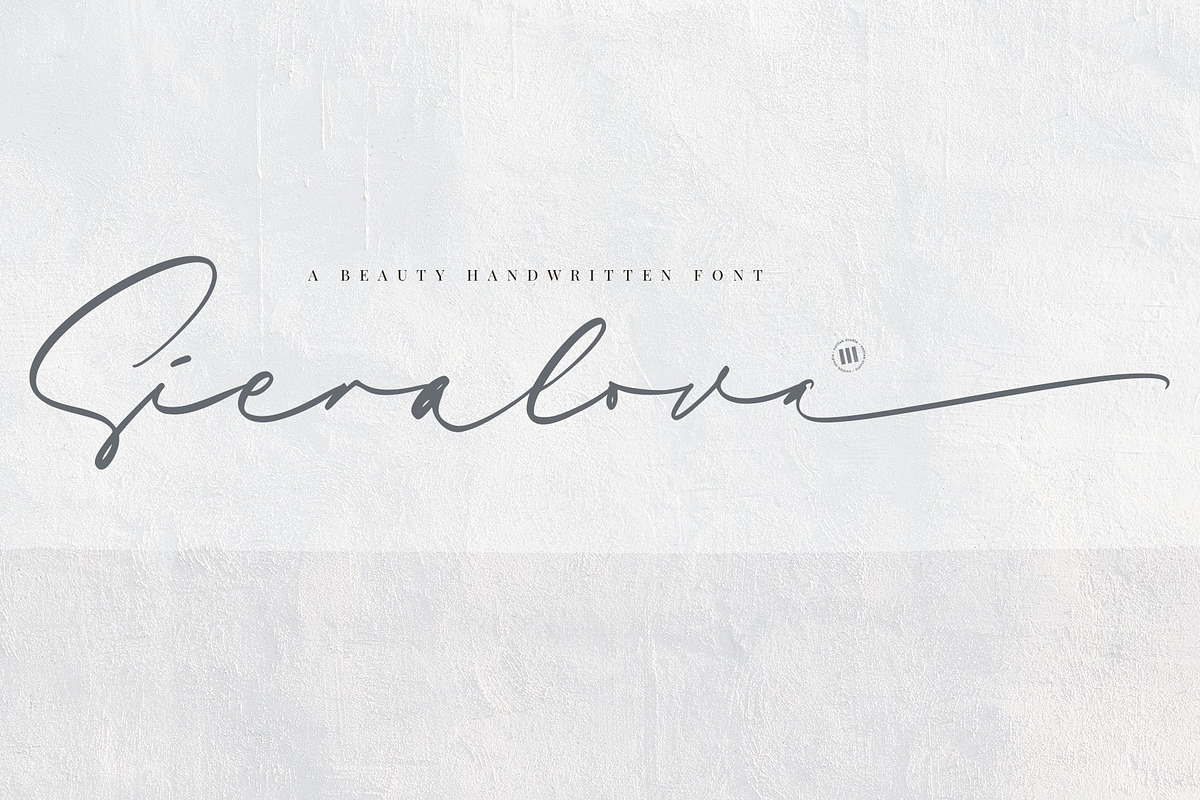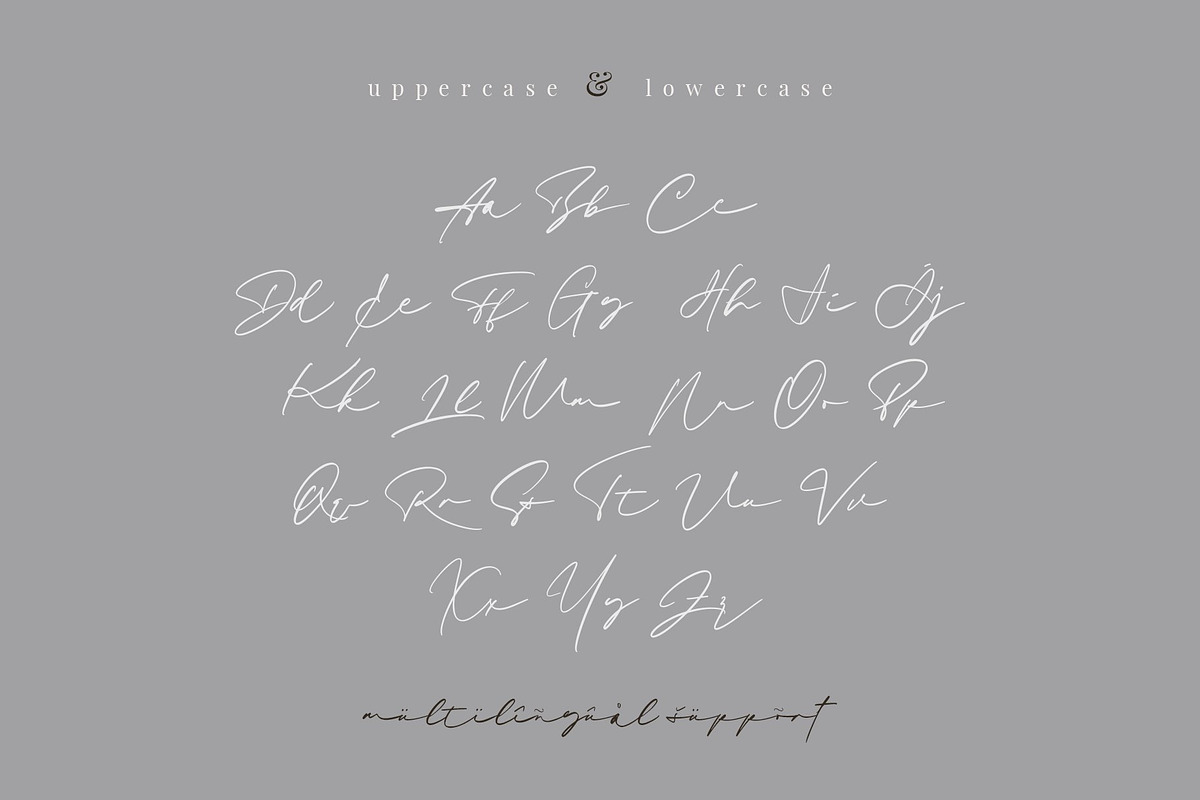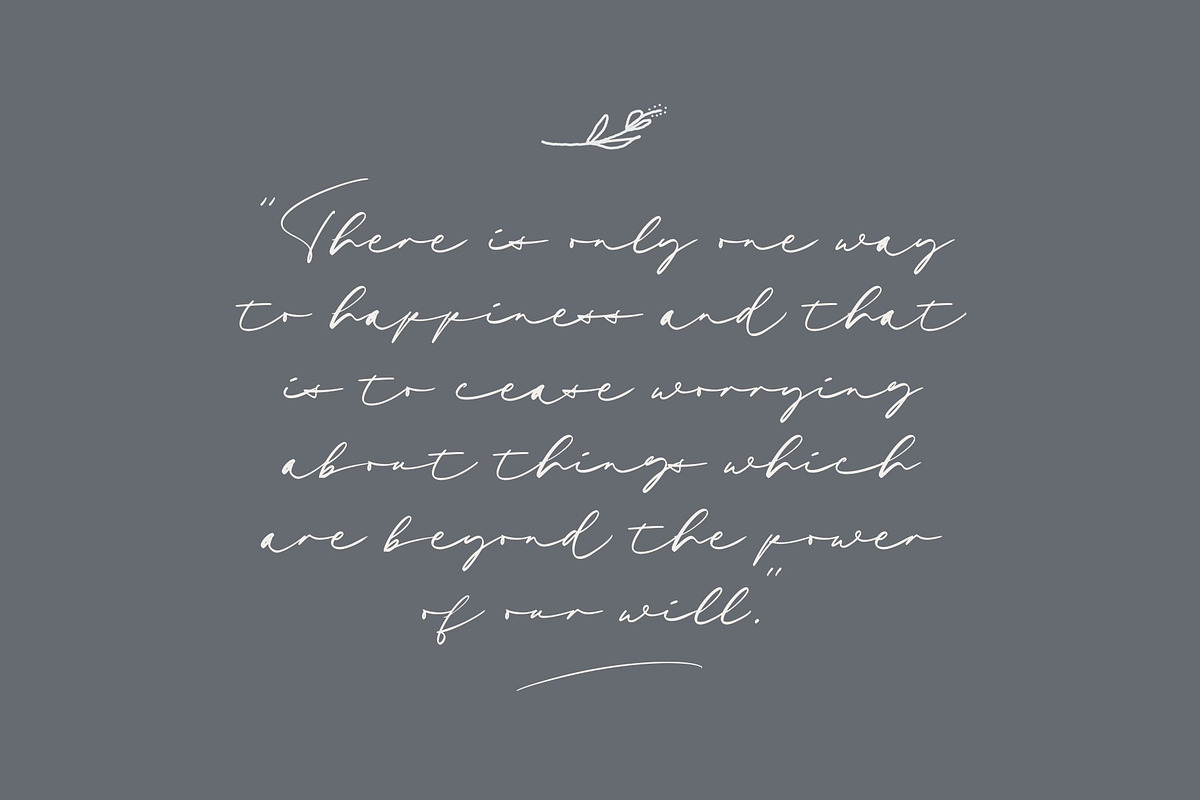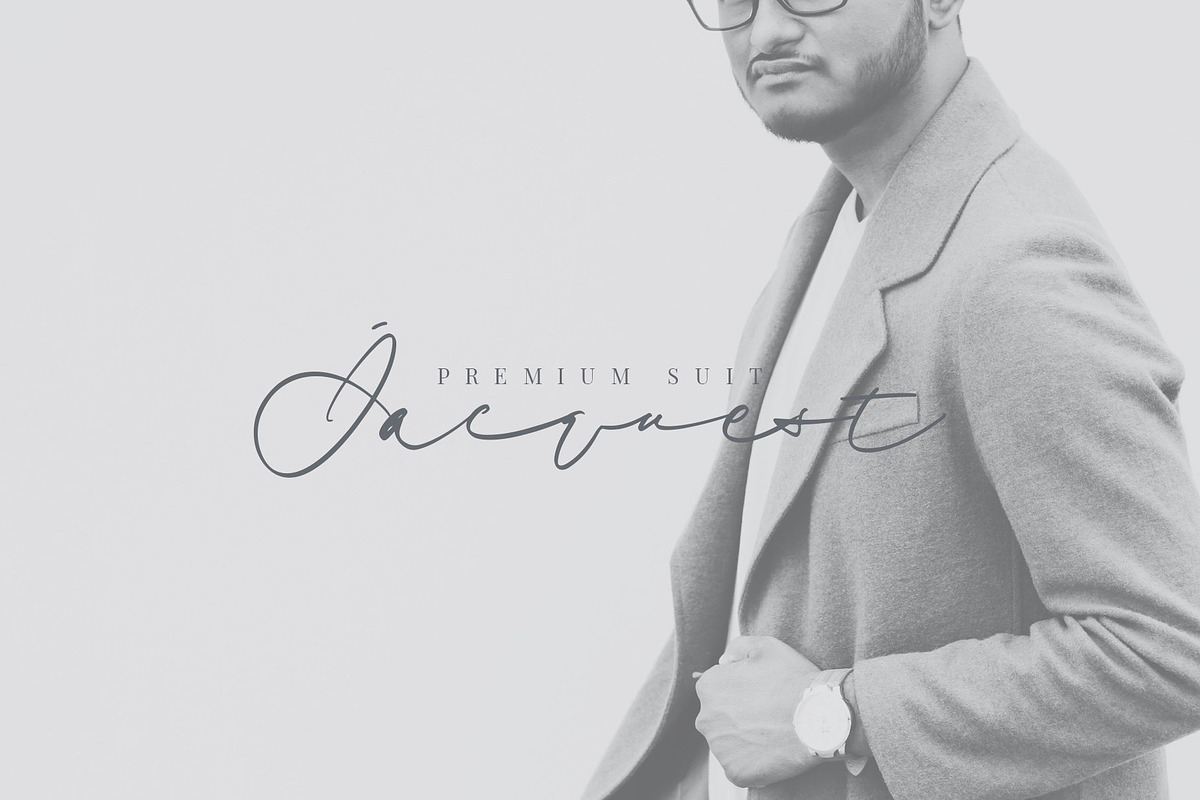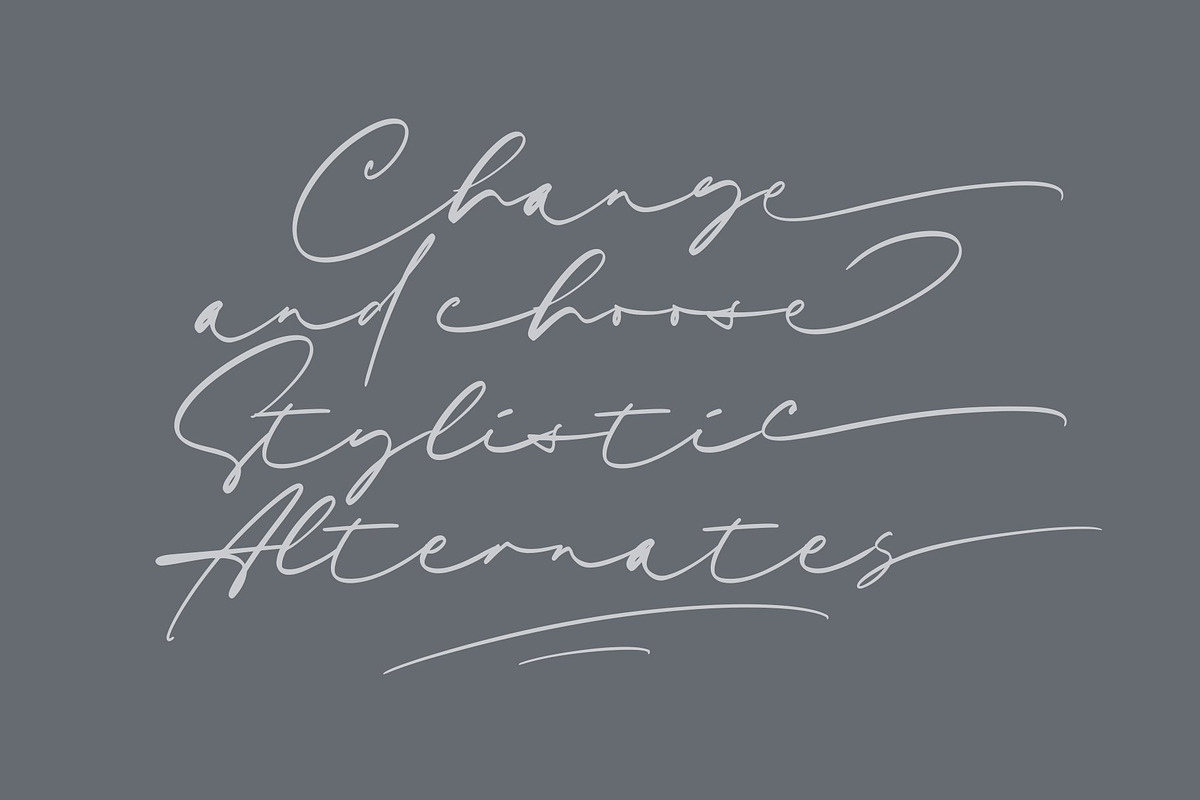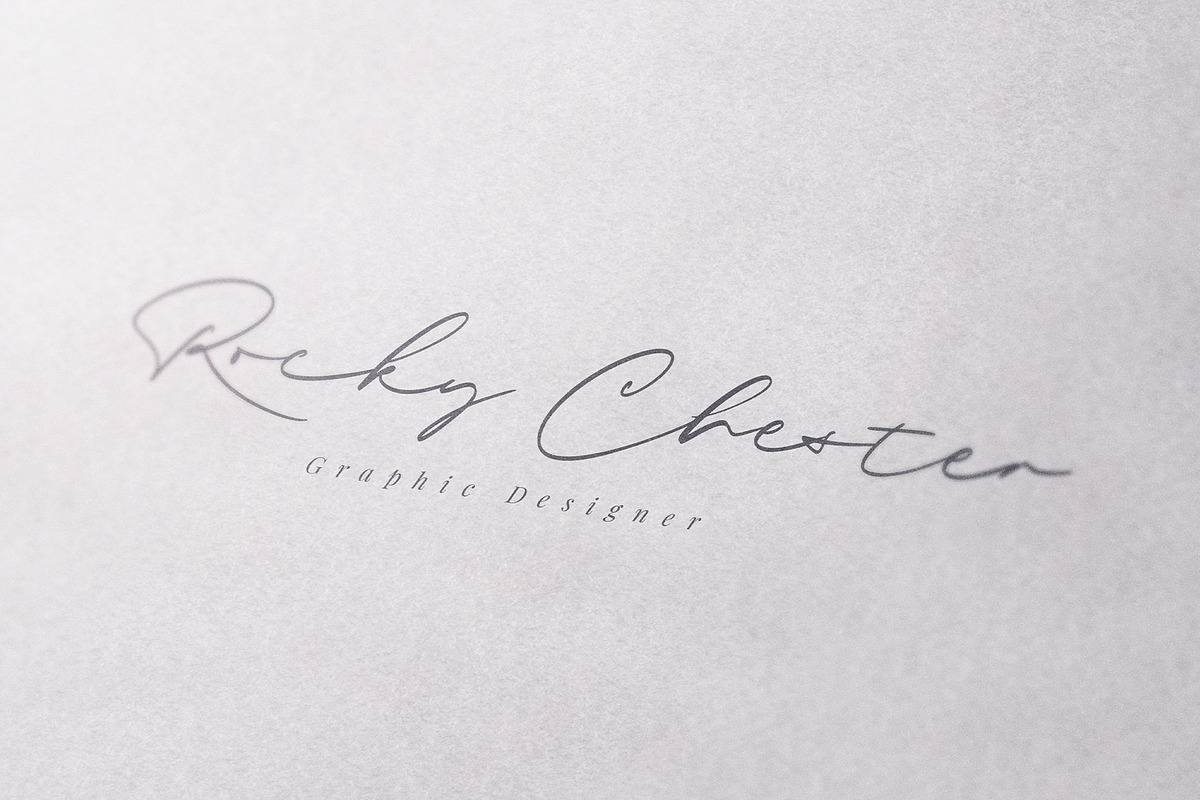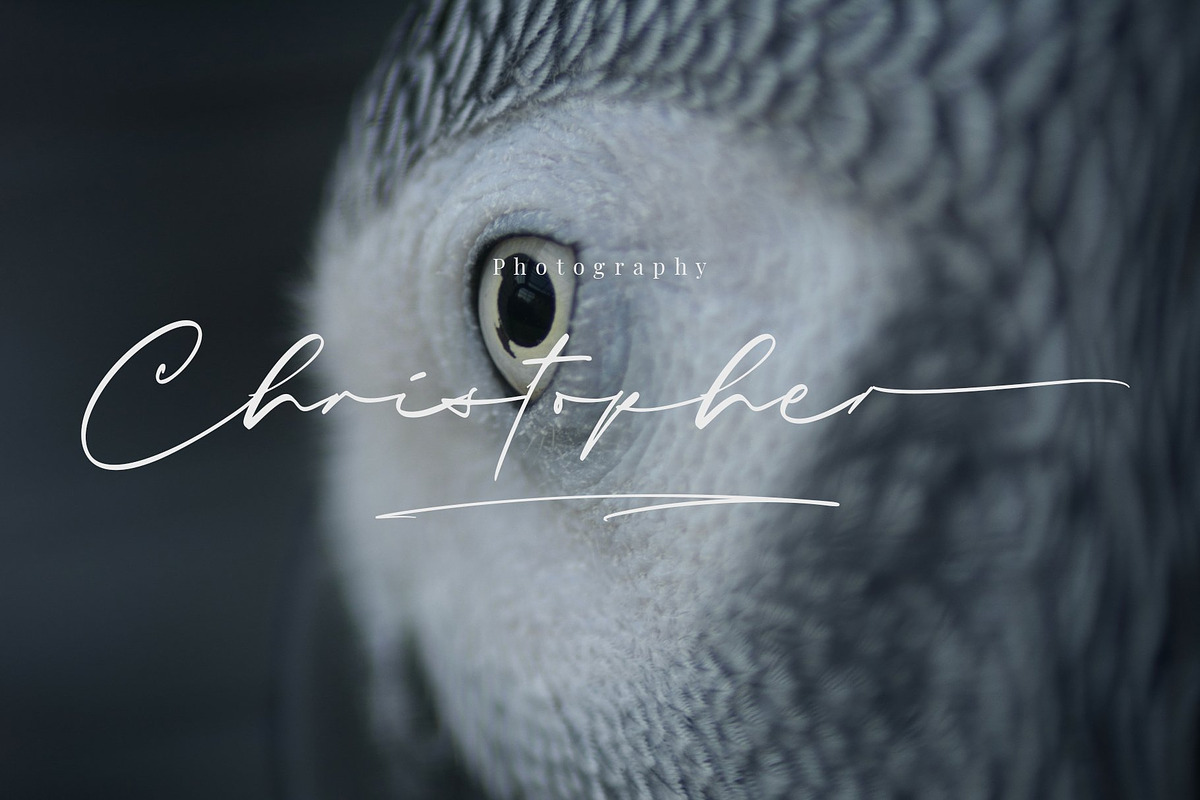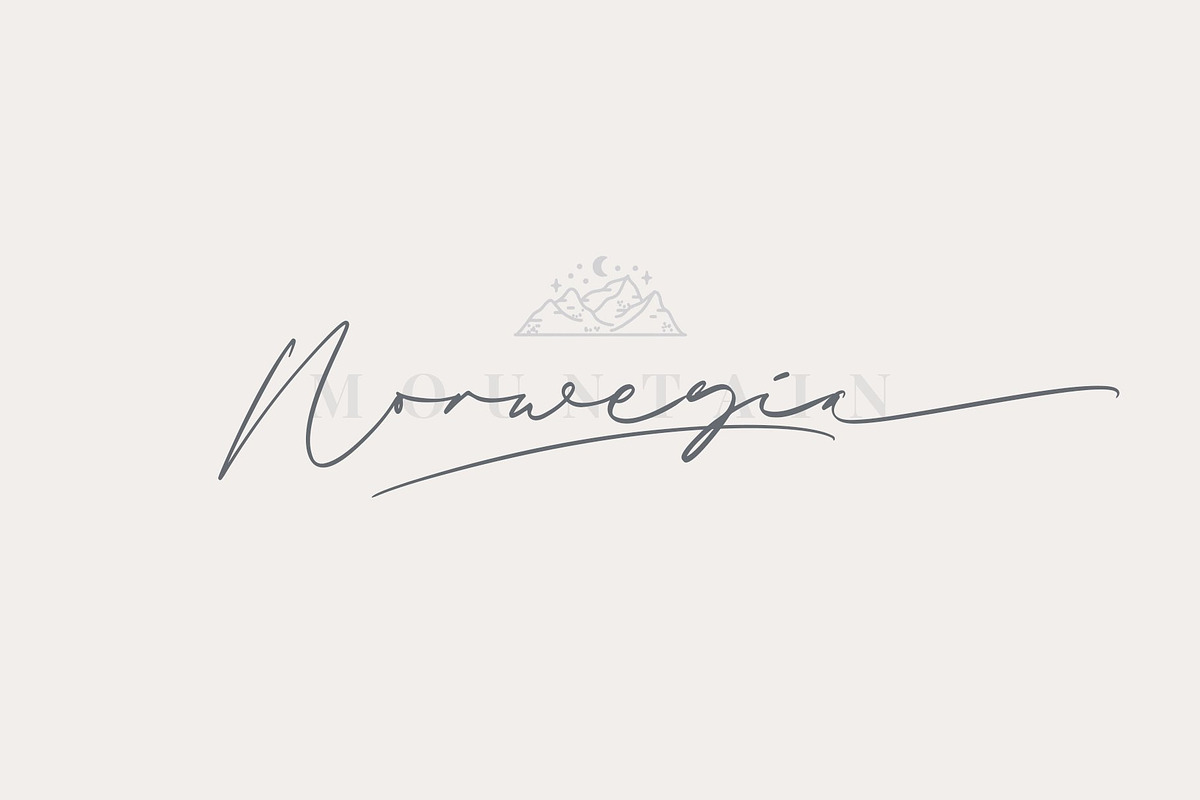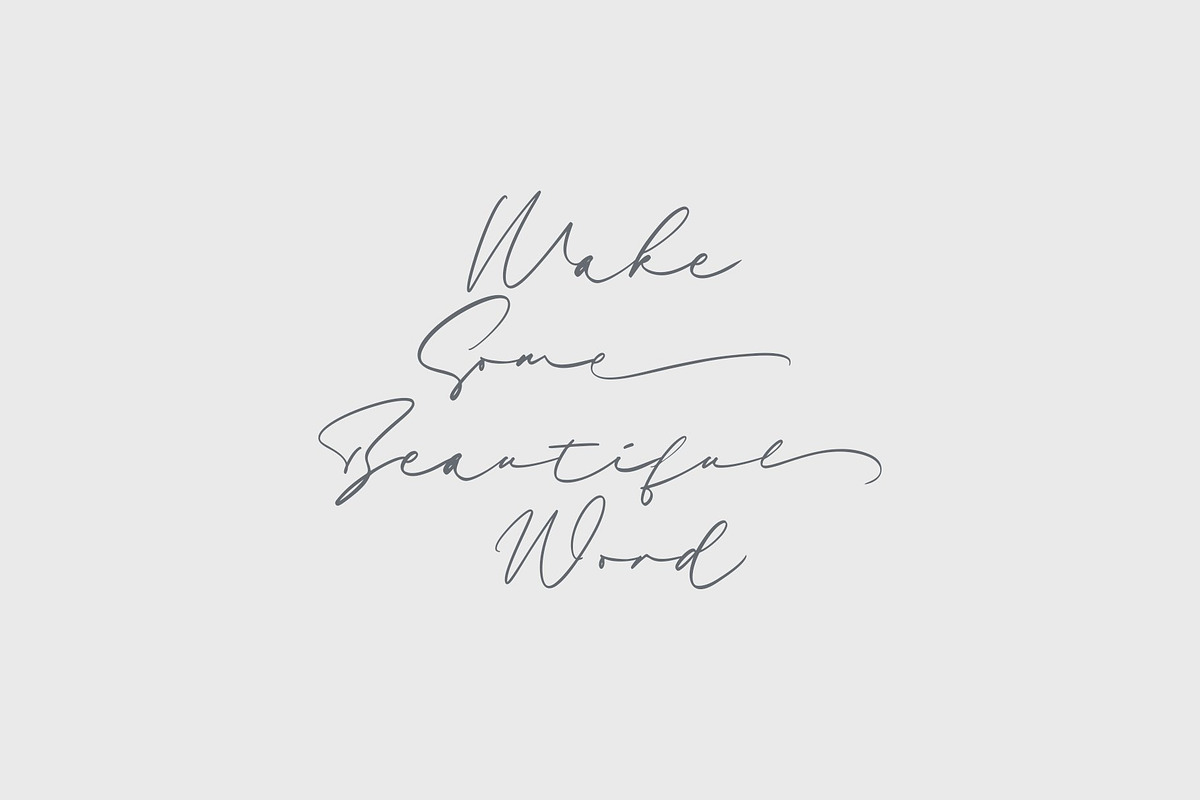
Sieralova - A Beauty Handwritten
Sieralova - A Beauty Handwritten Font
Sieralova is a timeless and incredibly relaxed handwritten font. It looks stunning on wedding invitations, thank you cards, quotes, greeting cards, logos, business cards and every other design which needs a handwritten touch.